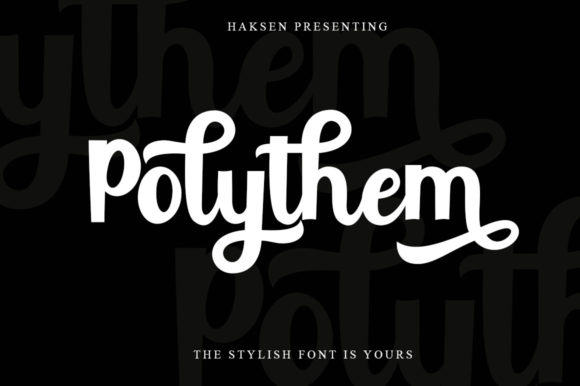
Introducing Polythem Font: The Script of Enchantment
Embark on a typographic voyage with Polythem Font, a script font that exudes beauty and boldness. Step into the realm of creativity, where Polythem's graceful contours and striking presence bring life to your designs. Crafted with meticulous attention to detail by the talented Haksen, Polythem is an artistic masterpiece that conjures a sense of wonder and enchantment.
Polythem's high-bold nature commands attention, making it the perfect choice for headlines, logos, posters, and branding projects that demand an unforgettable impact. Its thick strokes and sweeping curves add a touch of elegance and sophistication to any design, inviting viewers to immerse themselves in your message.
Discover the versatility of Polythem Font as you pair it with layer masks in Photoshop, creating captivating effects that emulate the script seamlessly flowing through the lines of a sans-serif font. This magical interplay between fonts opens up a world of possibilities, allowing you to craft designs that captivate and inspire.
Whether you're a seasoned designer or just starting your creative journey, Polythem Font is your gateway to extraordinary typography. Its user-friendly nature makes it accessible to designers of all skill levels, empowering you to transform your ideas into stunning visual masterpieces.
With Polythem Font, you'll unlock a new dimension of creativity, where your designs transcend the ordinary and embrace the extraordinary. Dare to be different, embrace the allure of Polythem, and let your imagination run wild. Start your typographic adventure today and experience the magic of Polythem Font.